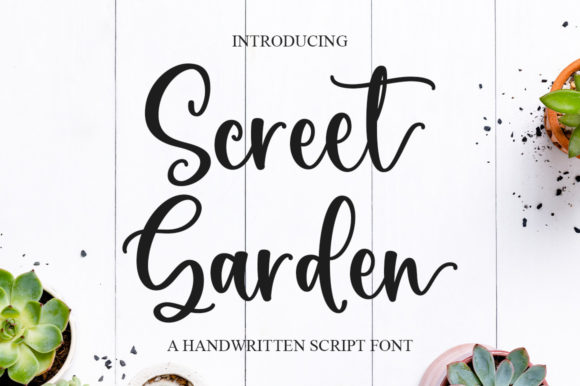
Immerse yourself in the world of elegance and sophistication with Screet Garden Font, a captivating journey through the realm of script fonts. As a creation of Nirmala Creative, Screet Garden has garnered widespread recognition as one of the Best Fonts For Logos in 2017, making it a timeless masterpiece in the world of typography.
With its intricate curves and delicate strokes, Screet Garden Font exudes a charm that is both classic and contemporary. Its inherent beauty lies in its ability to transform ordinary words into captivating works of art, adding an enchanting touch to logos, branding, and quotes.
Unleash your creativity and let Screet Garden Font be your muse as you design logos that leave a lasting impression. Its versatility allows you to craft unique and captivating designs that resonate with your brand's identity. Whether you seek a vintage or modern aesthetic, Screet Garden Font effortlessly adapts, becoming an integral part of your visual storytelling.
Embrace the power of Screet Garden Font to elevate your branding efforts. Its ability to create visually striking and memorable logos will set your brand apart from the competition, ensuring that your message is conveyed with impact and clarity.
As you explore the depths of Screet Garden Font, discover a treasure trove of glyphs and swashes, easily accessible thanks to its PUA encoding. This opens up a world of possibilities, allowing you to add intricate details and flourishes to your designs, creating a sense of depth and texture that captivates the eye.
Step into a realm of beauty and inspiration with Screet Garden Font, the ultimate choice for discerning designers seeking a touch of elegance and sophistication in their work. Its timeless appeal and versatility make it a must-have in the arsenal of any creative seeking to make a lasting impact.